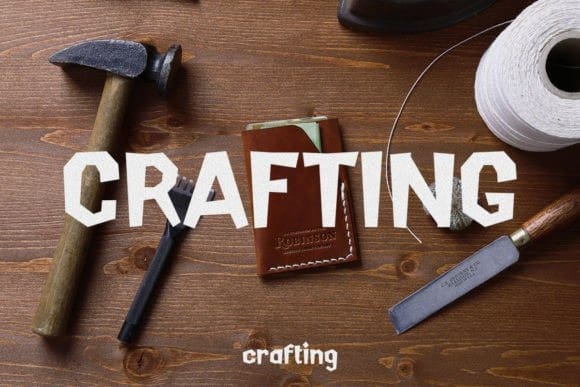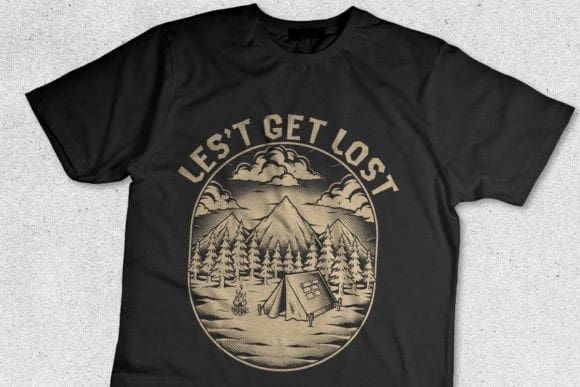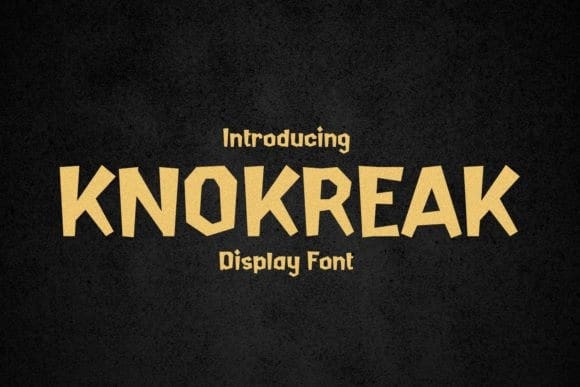
Knokreak Display Font
Knokreak Display Font, is a display font with a vintage art style. Perfect for element designs, events, t-shirts, logos, badges, stickers, and more awesome work.